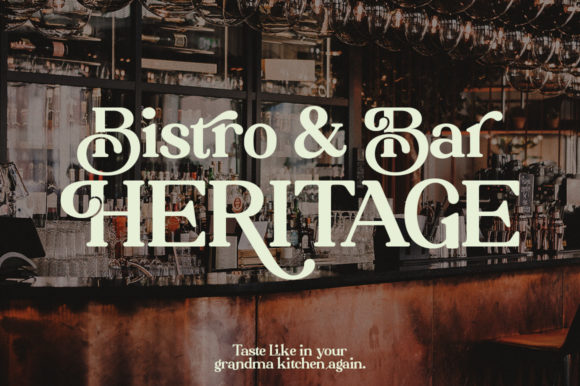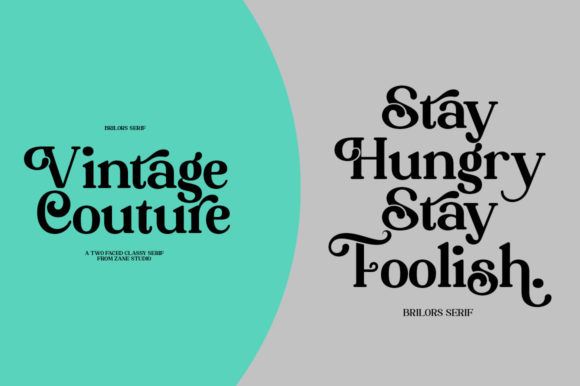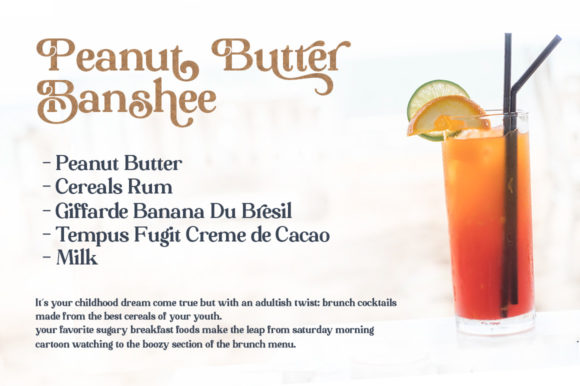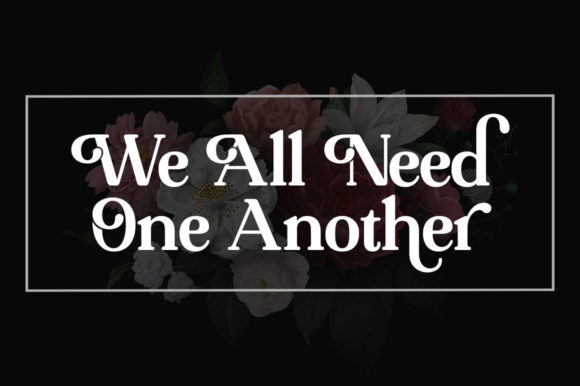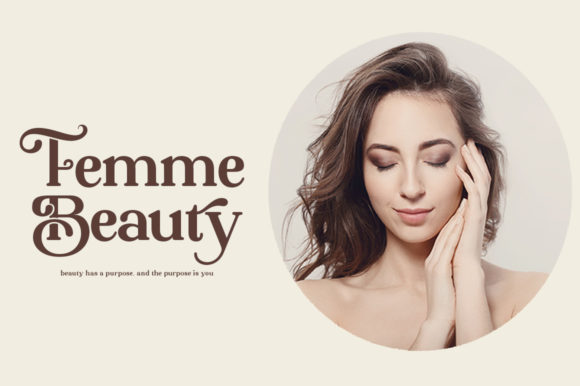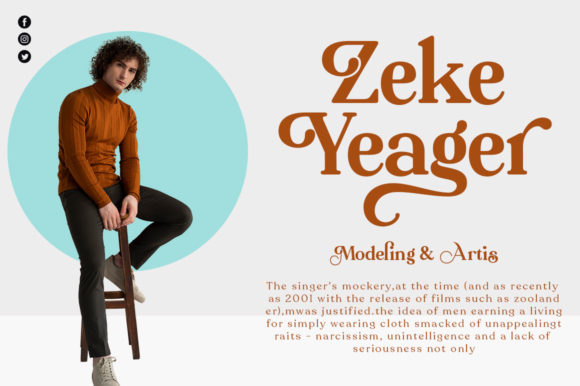
Introducing Brilors Font: Elevate Your Designs with Elegance and Style
In the world of typography, a font can make or break a design. For designers and crafters looking to add a touch of sophistication and elegance to their projects, Brilors Font is an excellent choice. This beautiful serif font is designed to impress, with its classic lines, refined curves, and exquisite swashes. In this article, we’ll dive into the features and benefits of Brilors Font, and explore how it can elevate your designs to the next level.
What is Brilors Font?
Brilors Font is an elegant and stylish serif font that exudes refinement and luxury. Its classic design makes it perfect for a wide range of projects, from wedding invitations and branding materials to packaging and digital media. The font’s serif lines and curves are carefully crafted to create a sense of sophistication and poise, making it ideal for designers who want to add a touch of elegance to their work.
One of the standout features of Brilors Font is its PUA (Private Use Area) encoding. This means that you can access all of the font’s glyphs and swashes with ease, giving you greater flexibility and creative control over your designs. With PUA encoding, you can effortlessly insert special characters, ligatures, and ornaments into your text, allowing you to customize your designs and make them truly unique.
Key Features of Brilors Font
- Elegant and stylish serif design: Brilors Font features a classic serif design that exudes sophistication and refinement.
- PUA encoded: Easy access to all glyphs and swashes, giving you greater creative control.
- Wide range of applications: Perfect for wedding invitations, branding, packaging, digital media, and more.
- High-quality design: Carefully crafted to ensure a high level of legibility and aesthetic appeal.
Benefits of Using Brilors Font
So why choose Brilors Font for your next project? Here are just a few benefits of using this beautiful font:
- Add a touch of elegance: Brilors Font is designed to add a touch of sophistication and refinement to your designs.
- Stand out from the crowd: With its unique swashes and glyphs, Brilors Font can help your designs stand out from the crowd.
- Easy to use: Brilors Font is PUA encoded, making it easy to access and use all of its features.
- Versatile: Suitable for a wide range of projects, from print to digital media.
How to Use Brilors Font in Your Designs
Using Brilors Font in your designs is easy. Here are a few tips to get you started:
- Pair it with other fonts: Brilors Font works well with other serif and sans-serif fonts, making it easy to create harmonious font combinations.
- Experiment with swashes and glyphs: Take advantage of Brilors Font’s PUA encoding to add unique swashes and glyphs to your designs.
- Use it for headlines and titles: Brilors Font is perfect for headlines and titles, where its elegant design can really shine.
In conclusion, Brilors Font is a beautiful and elegant serif font that can add a touch of sophistication and refinement to your designs. With its PUA encoding and wide range of applications, it’s perfect for designers and crafters looking to elevate their work. Whether you’re creating wedding invitations, branding materials, or digital media, Brilors Font is a great choice. So why not give it a try and see the difference it can make in your designs?